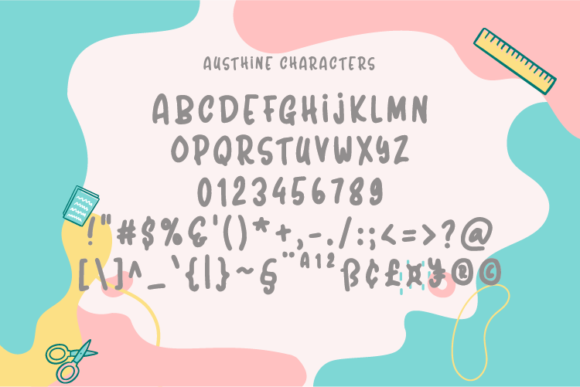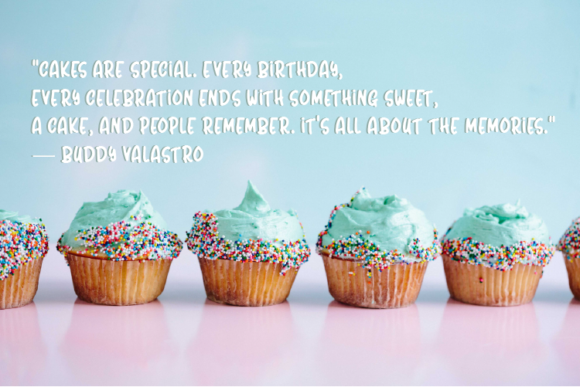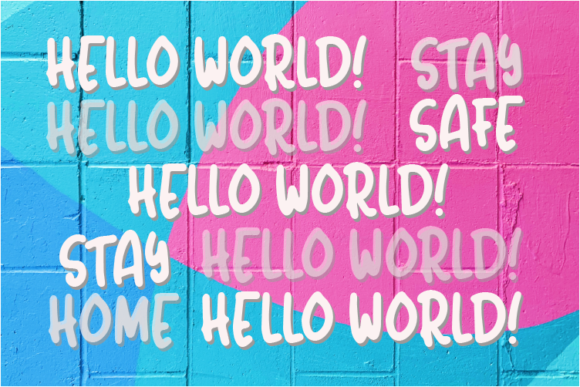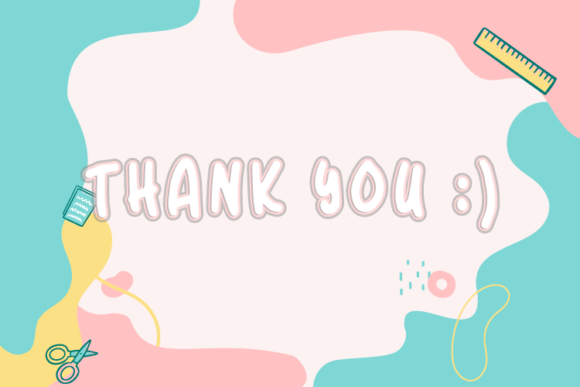
Austhine Font: Add a Personal Touch to Your Designs with this Quirky Handwritten Font
Are you looking for a font that can add a personal and realistic feel to your designs? Look no further than Austhine Font, a cute, asymmetrical, and quirky handwritten font that’s perfect for designers and crafters alike. In this article, we’ll take a closer look at Austhine Font, its features, and how you can use it to elevate your designs.
What is Austhine Font?
Austhine Font is a unique and charming handwritten font that’s designed to give your designs a personal and authentic touch. Its asymmetrical and quirky style makes it stand out from more traditional fonts, adding a touch of whimsy and playfulness to any design. Whether you’re working on a branding project, a craft project, or just want to add some personality to your digital designs, Austhine Font is the perfect choice.
Features of Austhine Font
Austhine Font has several features that make it a standout font for designers and crafters. Some of its key features include:
- Cute and Quirky Style: Austhine Font has a unique and playful style that’s perfect for adding a touch of personality to your designs.
- Asymmetrical Design: The font’s asymmetrical design gives it a hand-written and authentic feel that’s perfect for creating realistic and engaging designs.
- Handwritten Look and Feel: Austhine Font has a genuine handwritten look and feel that will add a personal touch to your designs.
- Easy to Read: Despite its quirky style, Austhine Font is easy to read and understand, making it perfect for use in a variety of design projects.
How to Use Austhine Font in Your Designs
Austhine Font is a versatile font that can be used in a variety of design projects, including:
- Branding and Logo Design: Use Austhine Font to create unique and memorable logos and branding materials that stand out from the crowd.
- Crafting and Scrapbooking: Add a personal touch to your crafting and scrapbooking projects with Austhine Font, perfect for journaling, titles, and headings.
- Digital Designs: Use Austhine Font in your digital designs, such as social media graphics, blog posts, and website headers, to add a touch of personality and whimsy.
Tips for Getting the Most Out of Austhine Font
Here are some tips for getting the most out of Austhine Font in your designs:
- Experiment with Colors: Austhine Font looks great in a variety of colors, so don’t be afraid to experiment and find the perfect color to match your design.
- Mix and Match with Other Fonts: Combine Austhine Font with other fonts to create interesting and unique typography.
- Use it for Headings and Titles: Austhine Font is perfect for use in headings and titles, adding a touch of personality and whimsy to your designs.
Austhine Font is a unique and charming handwritten font that’s perfect for designers and crafters looking to add a personal and realistic feel to their designs. With its cute, asymmetrical, and quirky style, Austhine Font is sure to stand out in any design project. Whether you’re working on a branding project, a craft project, or just want to add some personality to your digital designs, Austhine Font is the perfect choice.